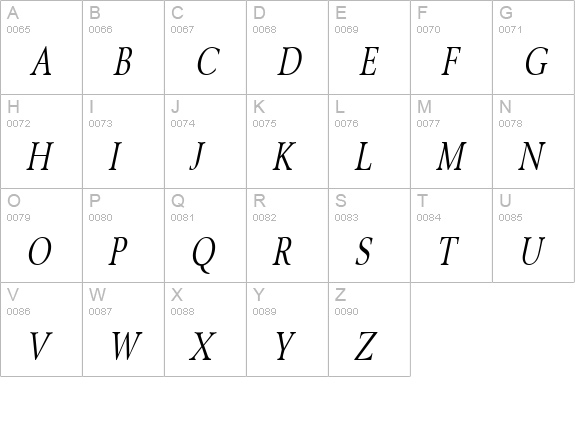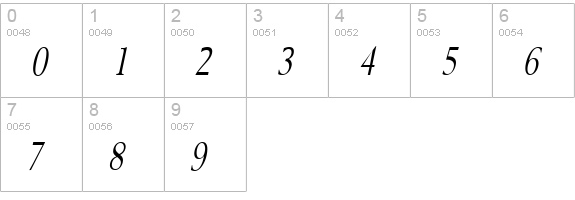
Revive 8 Thin Italic is a delicate, low-contrast, italic variant in the Revive typeface family \xE2\x80\x94 well suited to fashion editorial, minimal branding, and high-contrast display.
Introducing Revive 8 Thin Italic, a captivating typeface that exudes elegance and sophistication with its slender and stylish design. This font is an exquisite blend of contemporary aesthetics and timeless charm, making it a perfect choice for projects that demand a touch of refinement. Revive 8 Thin Italic effortlessly combines delicate curves and sleek lines, resulting in a typeface that is visually captivating and easy on the eyes. Its thin and italicized form lends an air of grace and subtlety to any design, making it ideal for elegant branding, high-end fashion magazines, luxurious packaging, and sophisticated editorial layouts. With its versatility and versatility, Revive 8 Thin Italic is equally at home in both digital and print mediums. Whether you're designing a website, crafting a logo, or creating a stunning poster, this font will add a touch of class and elegance to your project. One of the best aspects of Revive 8 Thin Italic is that it is freely available to download at FontsMarket.com. This means that you can easily access this remarkable font without any cost, making it a valuable asset for designers, creatives, and enthusiasts alike. So why wait? Enhance your designs with the timeless beauty and versatility of Revive 8 Thin Italic today.